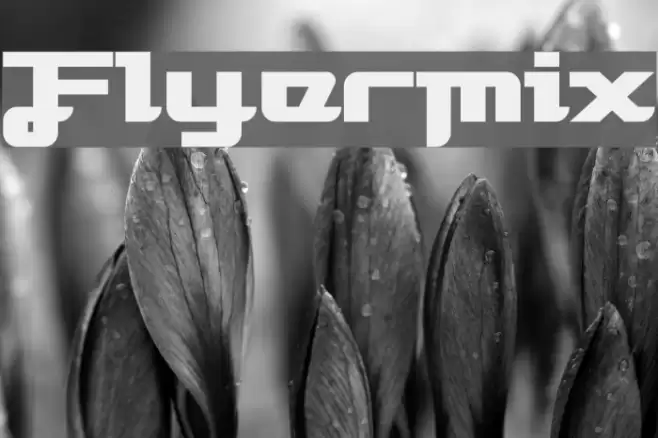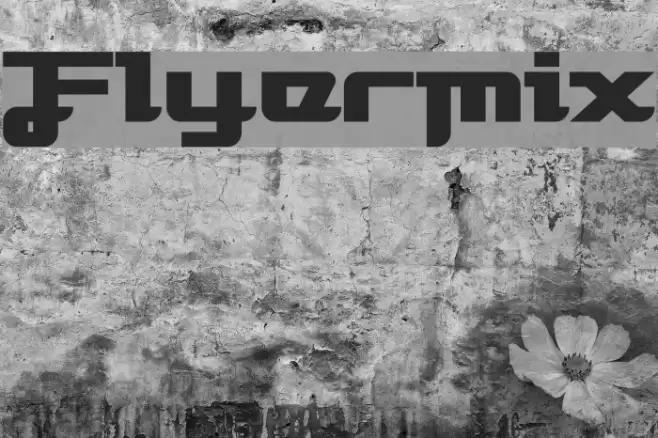
Flyermix Font
Flyermix Description
This font features a bold and geometric design with a futuristic flair. The characters are constructed with sharp angles and straight lines, creating a sense of precision and modernity. The uppercase and lowercase letters maintain a consistent style, with unique elements that add a touch of creativity. The numbers and special characters are equally bold, ensuring uniformity across all glyphs. This font is ideal for projects that require a strong visual impact and a contemporary aesthetic.
A bold, geometric font with a futuristic and modern design from Uncategorized fonts.